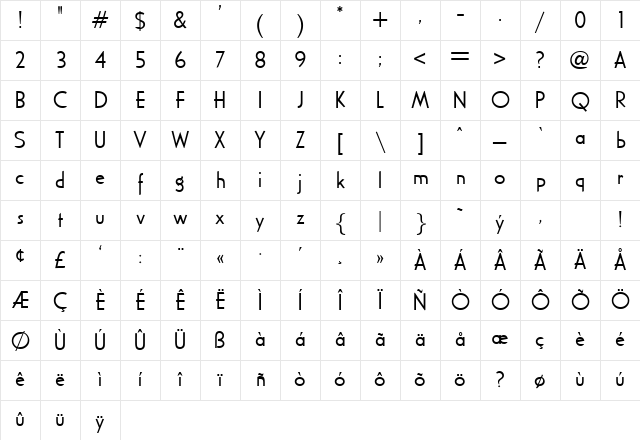
Consul Regular
Design Context for Consul
Consul is a composed and adaptable typeface that performs quietly and consistently across a wide range of design contexts.